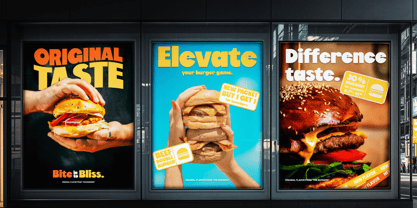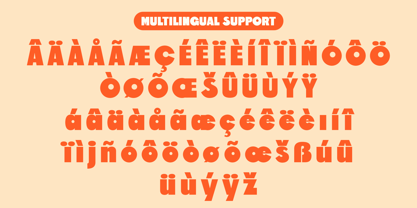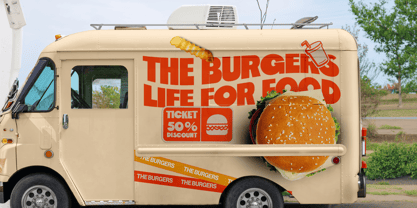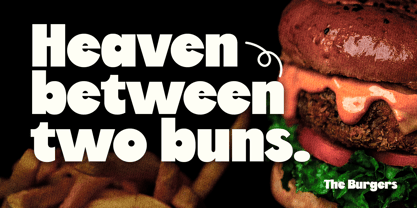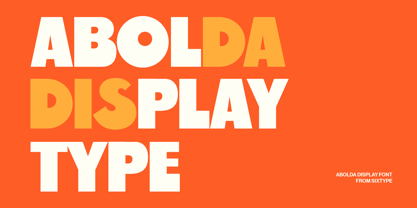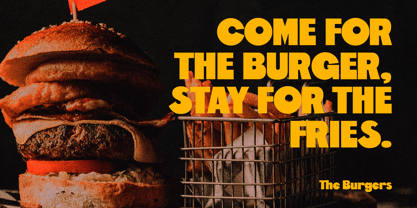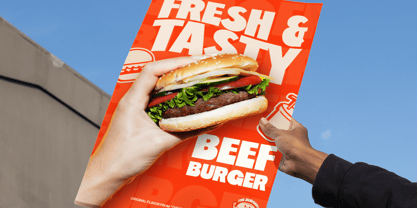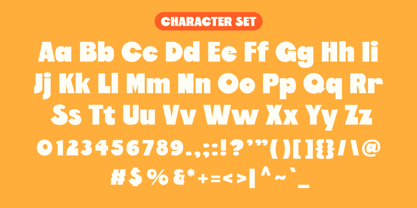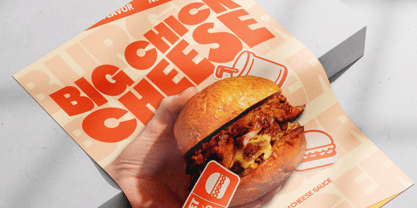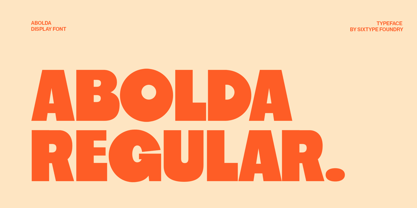
Abolda
by Sixtype Foundry
Abolda is a bold display typeface crafted to provide a strong visual impact while retaining a friendly and approachable character. Featuring thick strokes, rounded shapes, and solid proportions, Abolda infuses a confident, modern personality into any design. The letterforms are clear, playful, and highly legible at larger sizes, making this typeface ideal for attention-grabbing headlines and expressive layouts. Abolda excels in designs that aim to convey a bold, fun, and contemporary vibe without appearing aggressive, making it a versatile choice for branding, web design, and editorial projects.